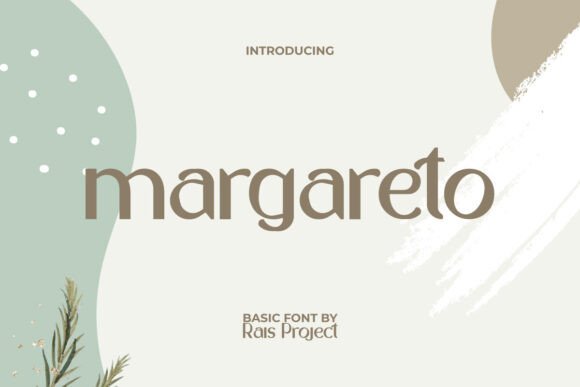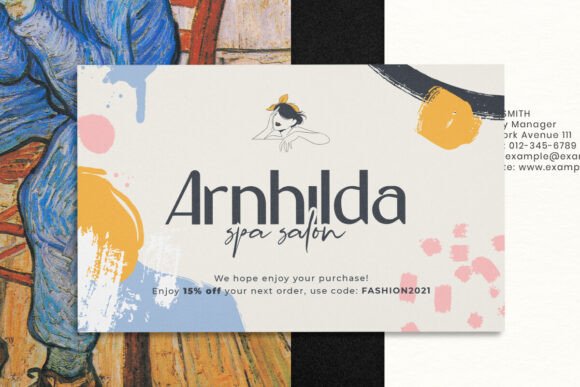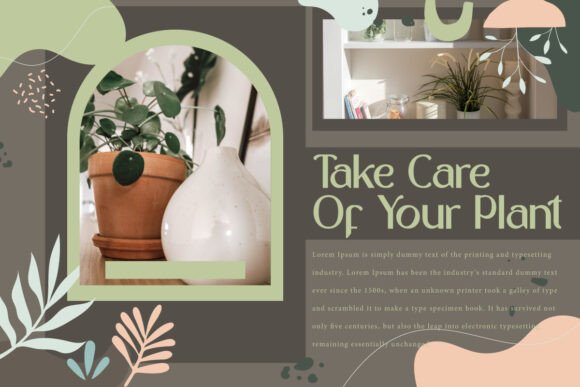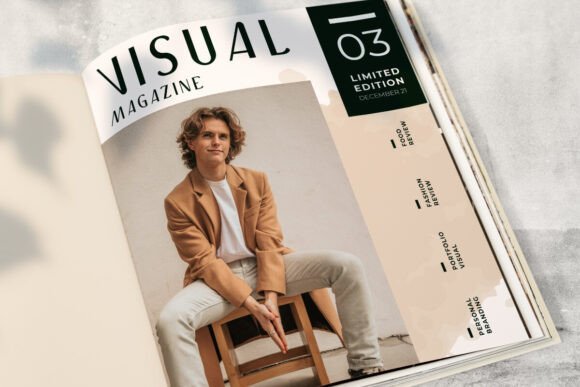
Margareto Font: Modern Sans Serif for Elegant Branding & Logo Design
About the Margareto Font
Make a bold statement with Margareto Font, a powerful and memorable font. Margareto Font is a stylish beautiful sophisticated sans serif display font by RaisProject. This font has a unique line shape and will not be boring to use in any of your designs. It will be good for any designs, such as advertisement, brand image, business card, cover, custom design, flyer, invitation, label, menu, poster, product packaging, quote, signage, website page, and more!
Margareto’s strong, geometric forms make it ideal for headlines, logos, and short, impactful text on posters or packaging. Its sophisticated elegance suits branding for premium products or upscale services. Avoid using it for body text or lengthy paragraphs; its bold strokes are not conducive to readability in smaller sizes or extended passages.
Consider pairing Margareto with a clean, neutral sans-serif like Open Sans for body copy or a classic serif like Garamond for a touch of traditional elegance. For a more modern feel, a geometric sans-serif such as Montserrat could create a balanced, contemporary aesthetic.
The overall personality of Margareto is modern and bold, conveying confidence and sophistication. It’s best suited for brands seeking a strong visual identity that projects authority and high quality.
Margareto Font Usage Examples
Margareto Font Example